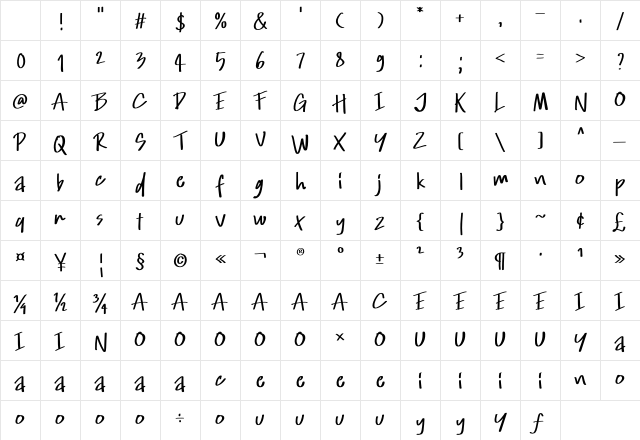
Complete Rindang Alam Regular glyph index. Displaying only characters natively supported by Rindang Alam Regular font.
Rindang Alam is a composed and adaptable typeface that performs quietly and consistently across a wide range of design contexts.